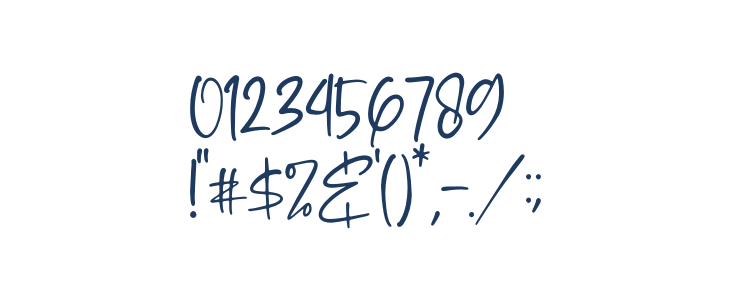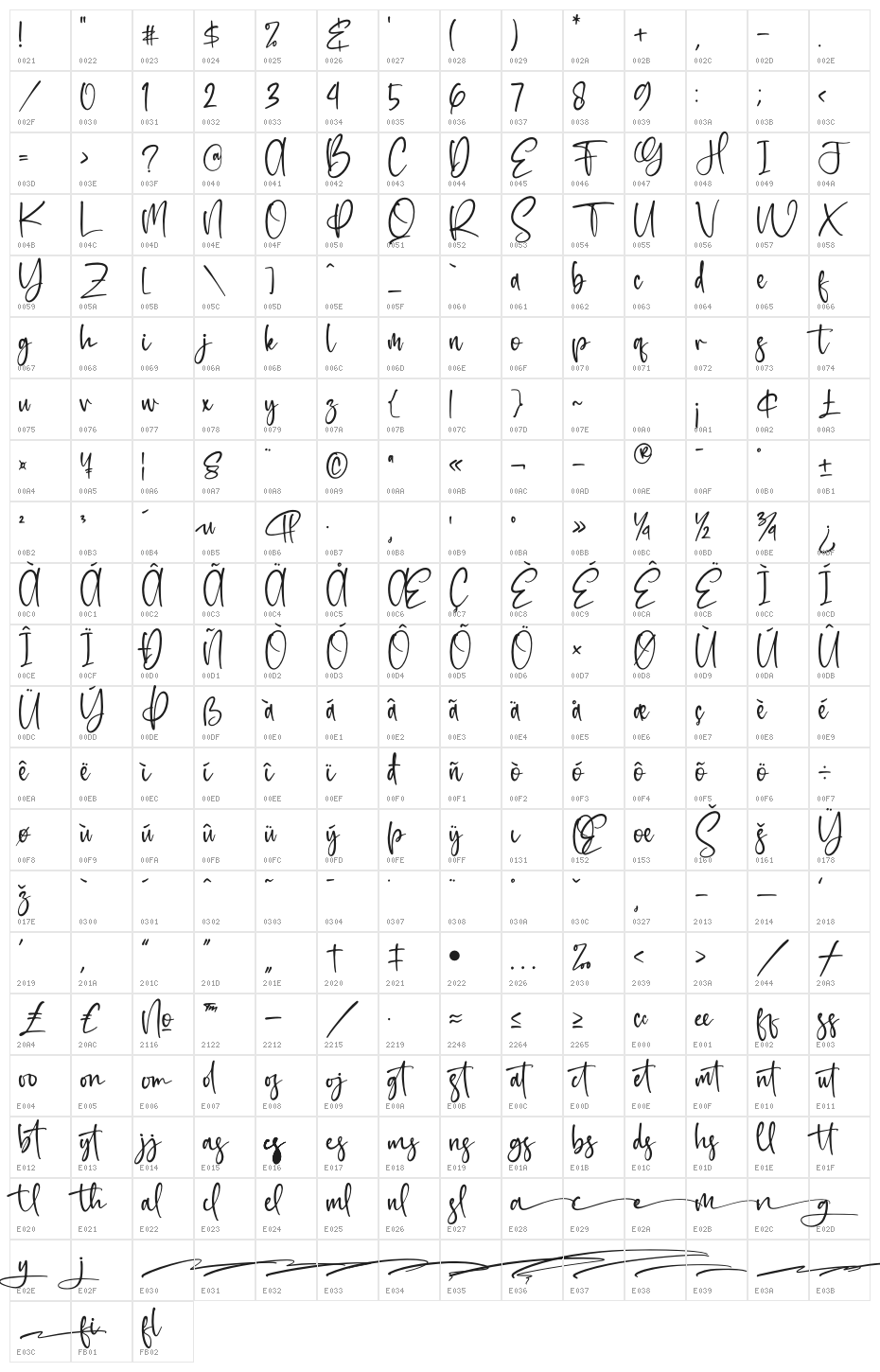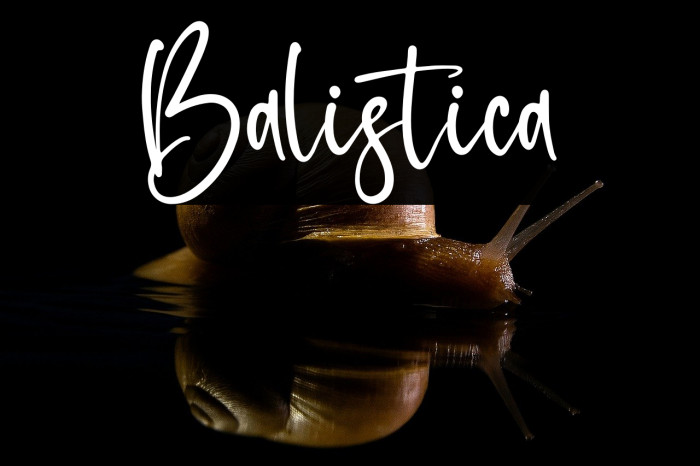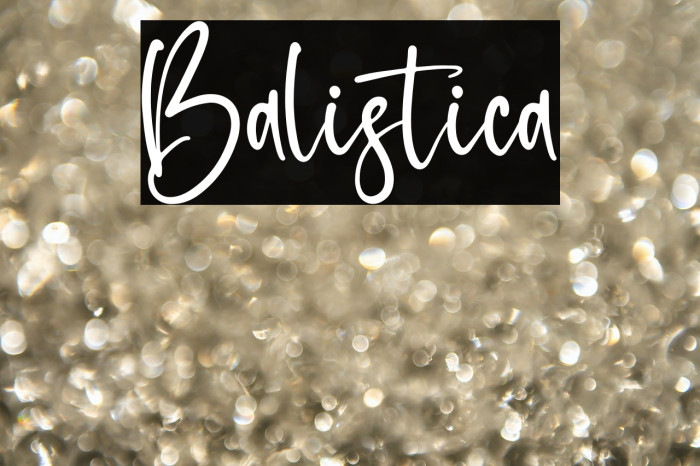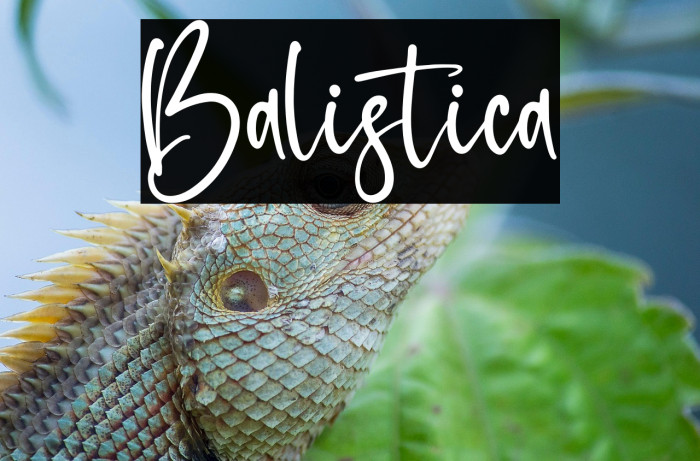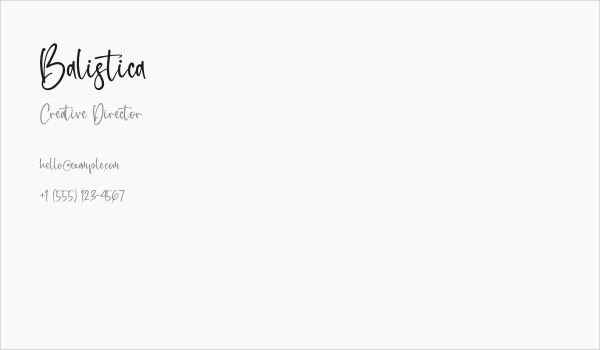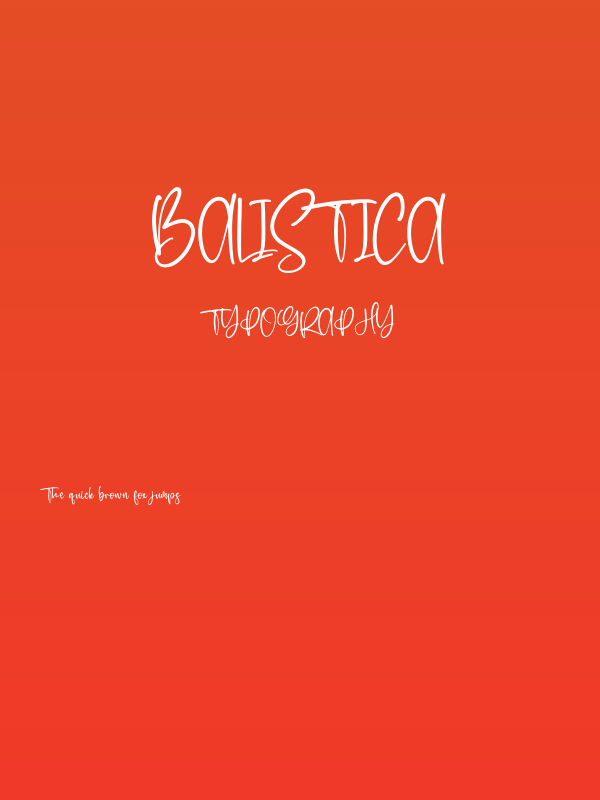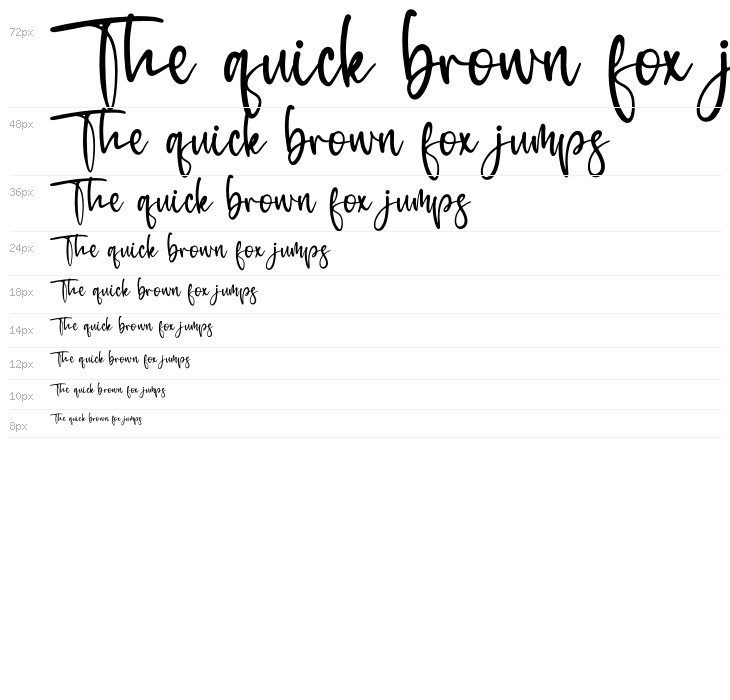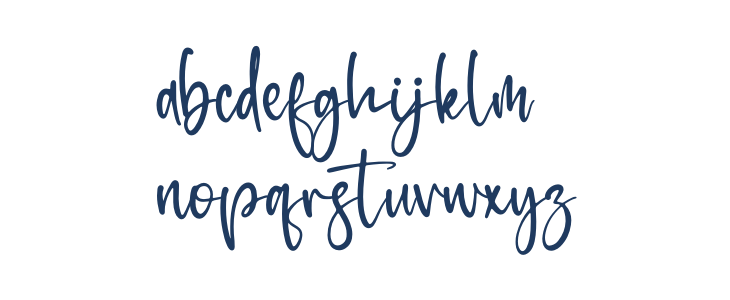
Balistica Font
Balistica Description
This font features a dynamic and expressive handwritten style, characterized by its fluid and energetic strokes. The uppercase letters exhibit a playful yet sophisticated flair, with varying line thickness that adds a sense of movement and spontaneity. The lowercase letters maintain a consistent flow, complementing the uppercase with their slightly more restrained curves. Numbers and special characters follow the same lively design, ensuring a cohesive look across all elements. The overall appearance is both modern and artistic, making it suitable for projects that require a personal touch.